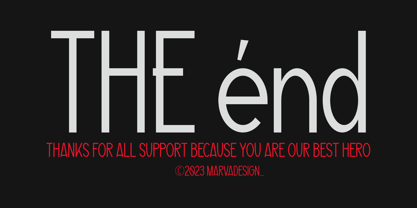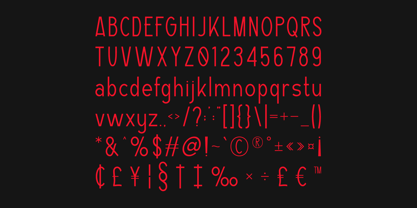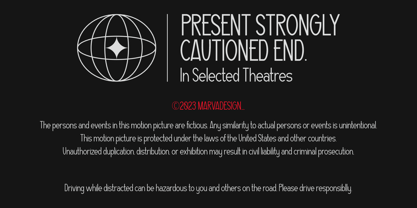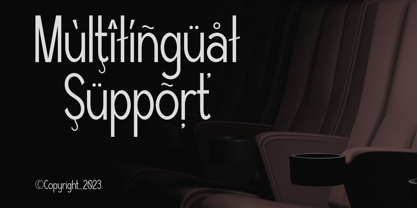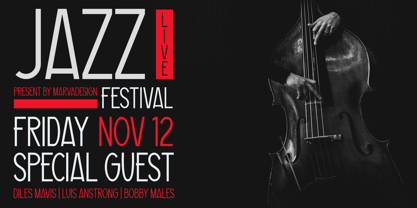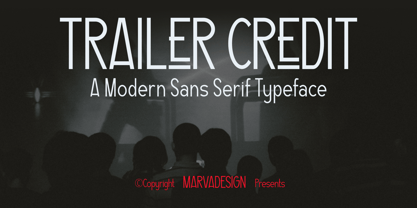
Trailer Credit
by Marvadesign
The Trailer Credit Font Family was designed by Febrie Setiawan and published by Marvadesign. Trailer Credit contains 1 styles. More about this family
Introducing Trailer Credit is a modern sans-serif typeface characterized by its sleek, elongated letterforms and high contrast between thick and thin strokes. It exudes a contemporary yet cinematic aesthetic, making it particularly well-suited for use in film credits, promotional posters, and stylish branding.
The typeface features a clean and minimalistic design with a slightly condensed structure, allowing for efficient space usage while maintaining readability. Its geometric influence is evident in the uniform stroke widths and smooth curves, while subtle custom modifications—such as unique letter extensions and cut-off elements—add a distinctive touch that enhances visual appeal.
The font effectively utilizes contrasting weights, often pairing bold uppercase letters with lighter, more delicate lowercase or supporting text. The use of red accents in certain designs emphasizes the dynamic and eye-catching nature of this typeface, making it highly effective for attention-grabbing headlines and event promotions.
Overall, this typeface balances elegance and modernity, offering versatility across different design applications. It is particularly well-suited for projects that require a refined yet impactful typographic presence, such as movie posters, music event flyers, and branding for luxury or creative industries.